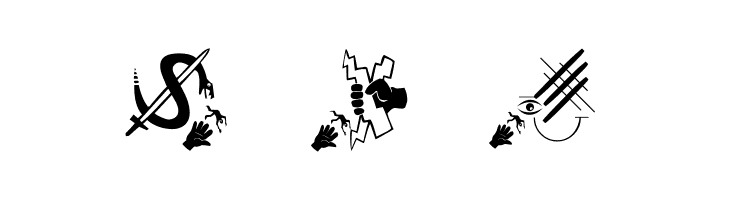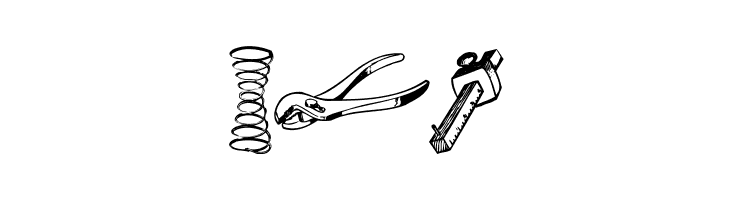
A decorative, pattern-filled font with folk art influences.
Whimsical, eye-themed decorative font with each letter as a distinct illustrated eye.
A decorative set of characters resembling stylized faces within cloud-like borders.
An artistic and decorative font featuring mythical and abstract creature designs.
A playful, decorative typeface with characters designed as expressive circular faces.
A decorative font composed of illustrated clown characters for each glyph.
A decorative font made of expressive clown faces for each character.
A decorative, angular font inspired by ancient runes.
A playful and nostalgic set of 1950s-themed icons with bold, retro designs.
A playful, clown-themed decorative font with unique character illustrations.
A decorative font with pictograms of winter sports activities.
Illustrative font with shopping-themed scenes forming each character.
Decorative symbol font featuring African archetypal imagery.
A decorative, magic-themed font with intricate illustrations in each character.
Whimsical cartoon dingbat font with playful, hand-drawn icons.
Decorative pictogram font inspired by ancient or tribal art.
A decorative font featuring tangram-style bird shapes for each character.
Cartoonish, hand-drawn faces as characters in circular frames.
A decorative font featuring detailed illustrations of rural life elements.
A bold, decorative font with intricate thorny vine designs.
Playful and whimsical icons representing various sports and activities.
A decorative font with characters represented by detailed illustrations of tools and gadgets.
Intricate symbols inspired by ancient Mayan and Mexican iconography.
A decorative font featuring intricate tribal-inspired symbols and figures.
A playful font with numbers styled as inflated balloons, perfect for festive designs.
A bold, decorative font with intricate patterns and a rugged, adventurous vibe.
Intricate, vintage-style symbols with historical and esoteric themes.
A whimsical, illustrative font with unique drawings for each character.
A decorative set of American-themed illustrations instead of a traditional font.
A whimsical, bold font with decorative, circus-themed elements.
Expressive manga illustrations form each character.
Intricate marine-themed illustrations replace standard characters.
A whimsical set of abstract, cave art-inspired symbols within diamond shapes.